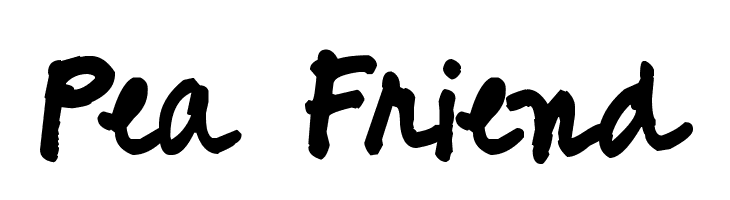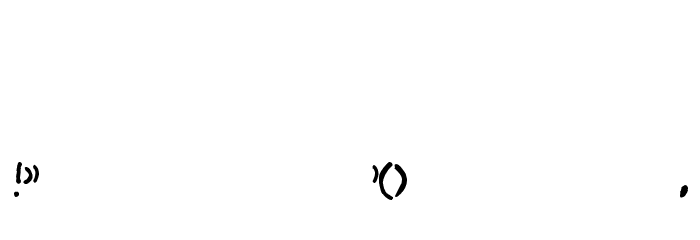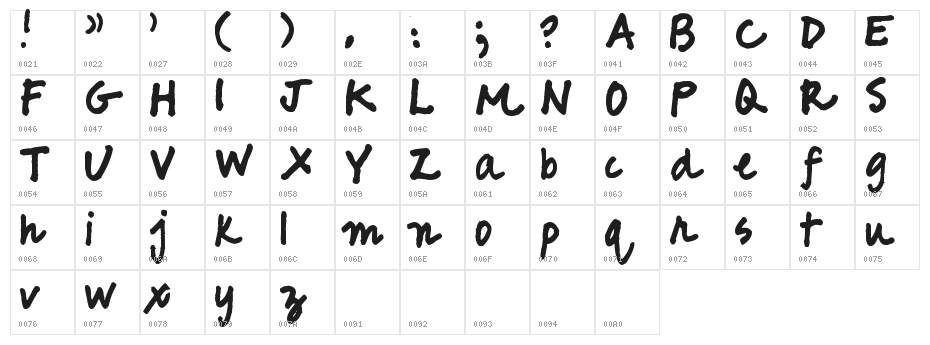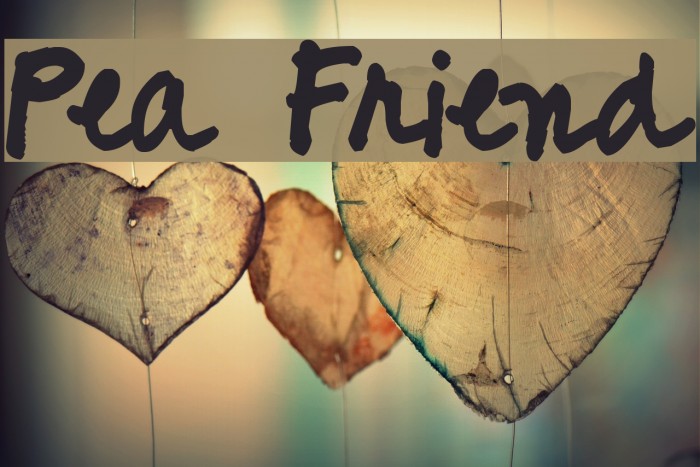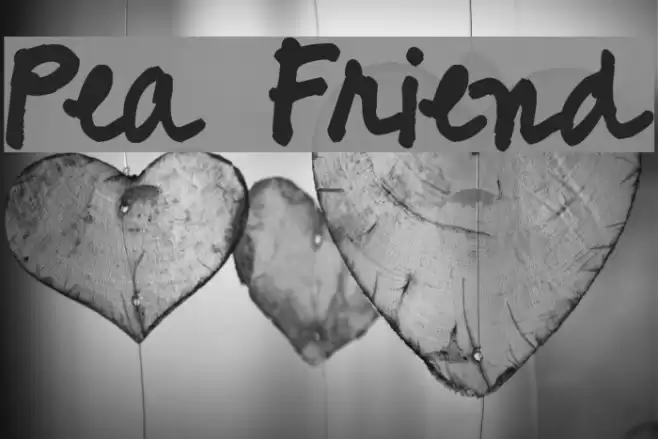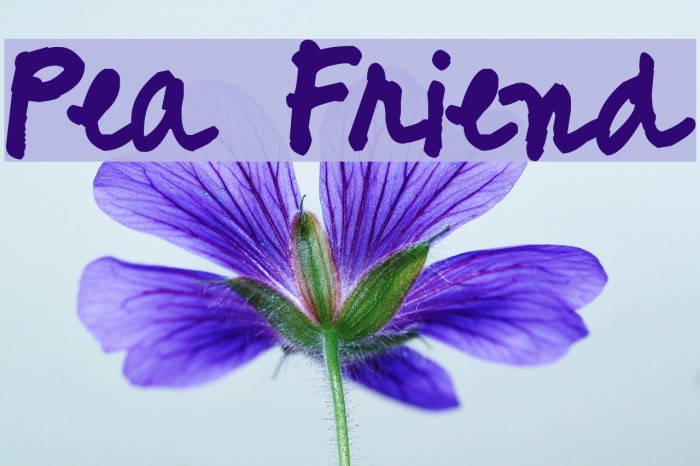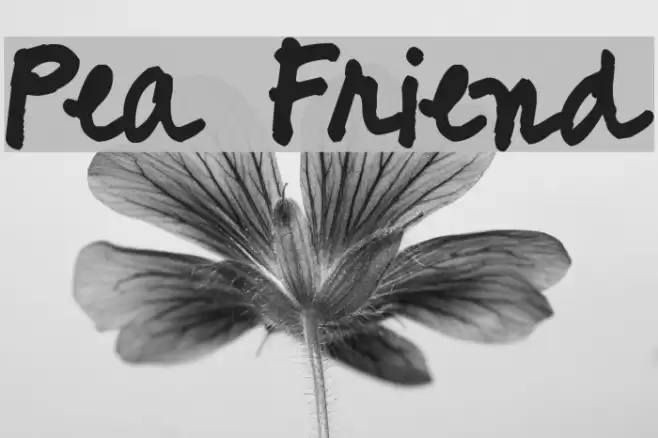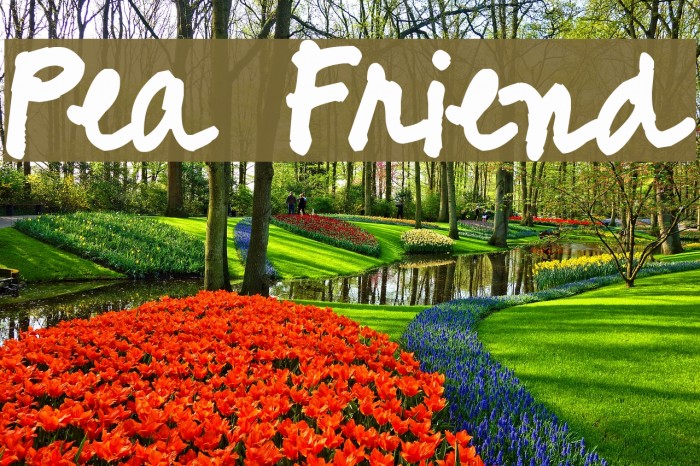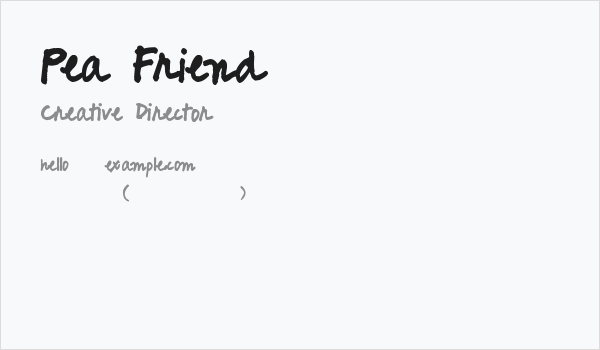
Pea Friend Font
Pea Friend Description
This font exudes a casual, handwritten style with a playful and friendly appearance. The letters are bold and slightly irregular, giving it a personal touch reminiscent of a quick note or a casual letter. The strokes are thick and consistent, providing a strong visual impact. The uppercase and lowercase letters maintain a cohesive style, with rounded edges and a slight slant that adds to the informal feel. The numbers and special characters follow the same design principles, ensuring uniformity across all glyphs. This font is perfect for projects that require a personal, approachable, and informal tone.
| Proposed Projects | Ideal for greeting cards, personal notes, informal invitations, and playful branding. |